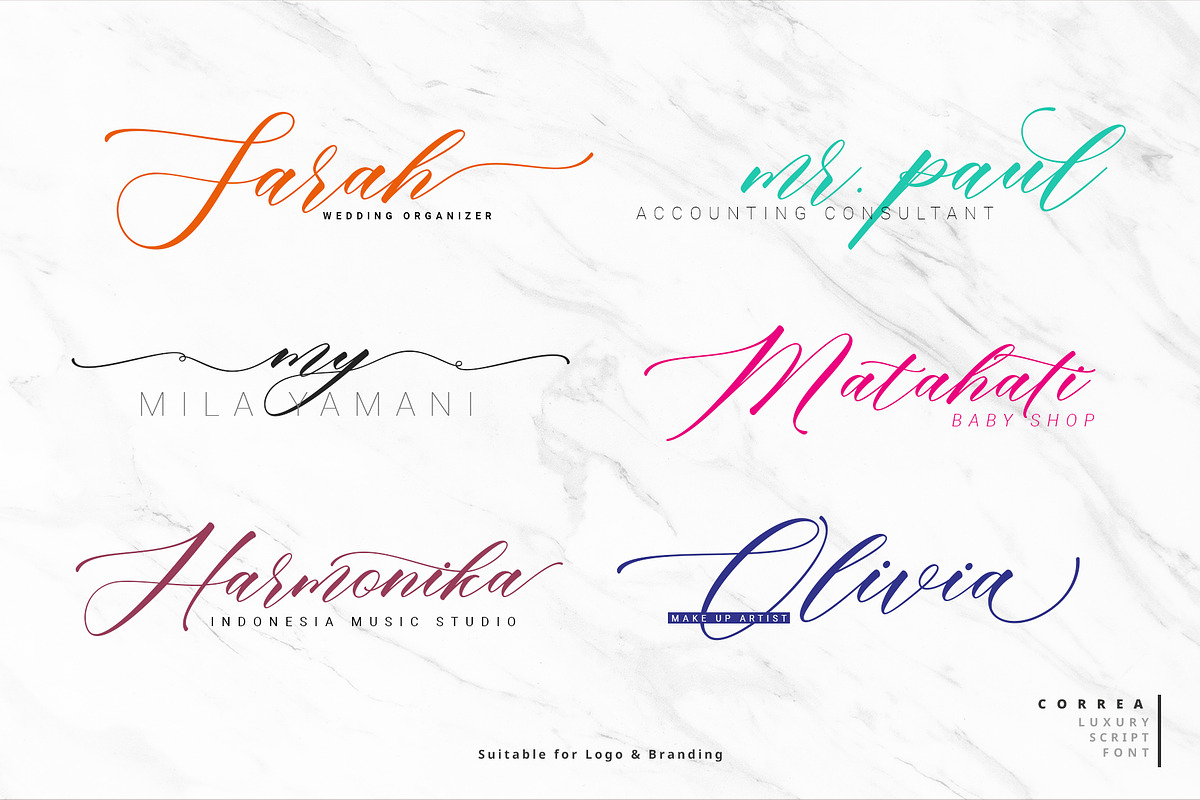
Correa Script-UPDATE
Update alternative glyphs and multilingual support!
Introduce Correa Script!
This is a modern font script. This font comes with a semibold and italic style, in this font you will find a style of luxury, firm and elegant. Available 418 glyphs in it! so you can get used it freely as you see fit. Please try and hope you enjoy it!
With a style like this, this font will be suitable in use for logo's, branding projects, homeware designs, product packaging, mugs, quotes, posters, shopping bags, logo's, t-shirts, book covers, name card, invitation cards, greeting cards, and all your other lovely projects.
You can use this font for your job very easily. Because there are many features in it. Contains the complete set of lower and uppercase letters, punctuation, numbers, web fonts, and multilingual support. This font also includes several ligatures and alternative style Stylistic Set For those of you who have software that is capable of working OpenType (Corel Draw / Photoshop / Illustrator / InDesign).